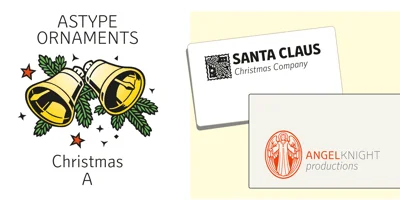
ASTYPE Ornaments Christmas A Font
ASTYPE Ornaments Christmas A Font is perfect for holiday greeting cards, Christmas packaging design, festive social media graphics, seasonal branding campaigns, winter wedding invitations, holiday party materials, Christmas market signage, and yuletide decorative projects. This enchanting ornamental typeface excels in projects requiring magical Christmas atmosphere and traditional holiday charm.
What makes ASTYPE Ornaments Christmas A Font exciting is its comprehensive collection of beautifully crafted Christmas symbols and decorative elements that capture the wonder and joy of the holiday season. The font features an extensive array of festive ornaments including snowflakes, Christmas trees, holly leaves, candy canes, presents, bells, and seasonal flourishes that bring instant holiday magic to any design. Its charming character makes it perfect for creating memorable Christmas experiences.
ASTYPE Ornaments Christmas A Font family includes hundreds of unique Christmas-themed symbols and decorative elements that provide endless creative possibilities for holiday design projects. The collection typically offers various sizes of ornaments, borders, frames, and seasonal icons that can be combined to create stunning festive compositions and holiday-themed layouts.
Whether you're designing Christmas marketing campaigns, creating holiday product packaging, or developing seasonal event materials, ASTYPE Ornaments Christmas A Font provides the perfect festive solution for projects demanding authentic Christmas spirit. This ornamental font's magical appeal and comprehensive symbol library make it essential for designers specializing in holiday and seasonal projects.
The carefully designed symbols and consistent styling of ASTYPE Ornaments Christmas A Font ensure perfect harmony when combining multiple elements in complex holiday designs. Its extensive collection and high-quality craftsmanship create professional results that capture the timeless beauty of Christmas traditions. Download ASTYPE Ornaments Christmas A Font today and fill your holiday projects with the enchanting magic of Christmas through this exceptional ornamental typeface collection.